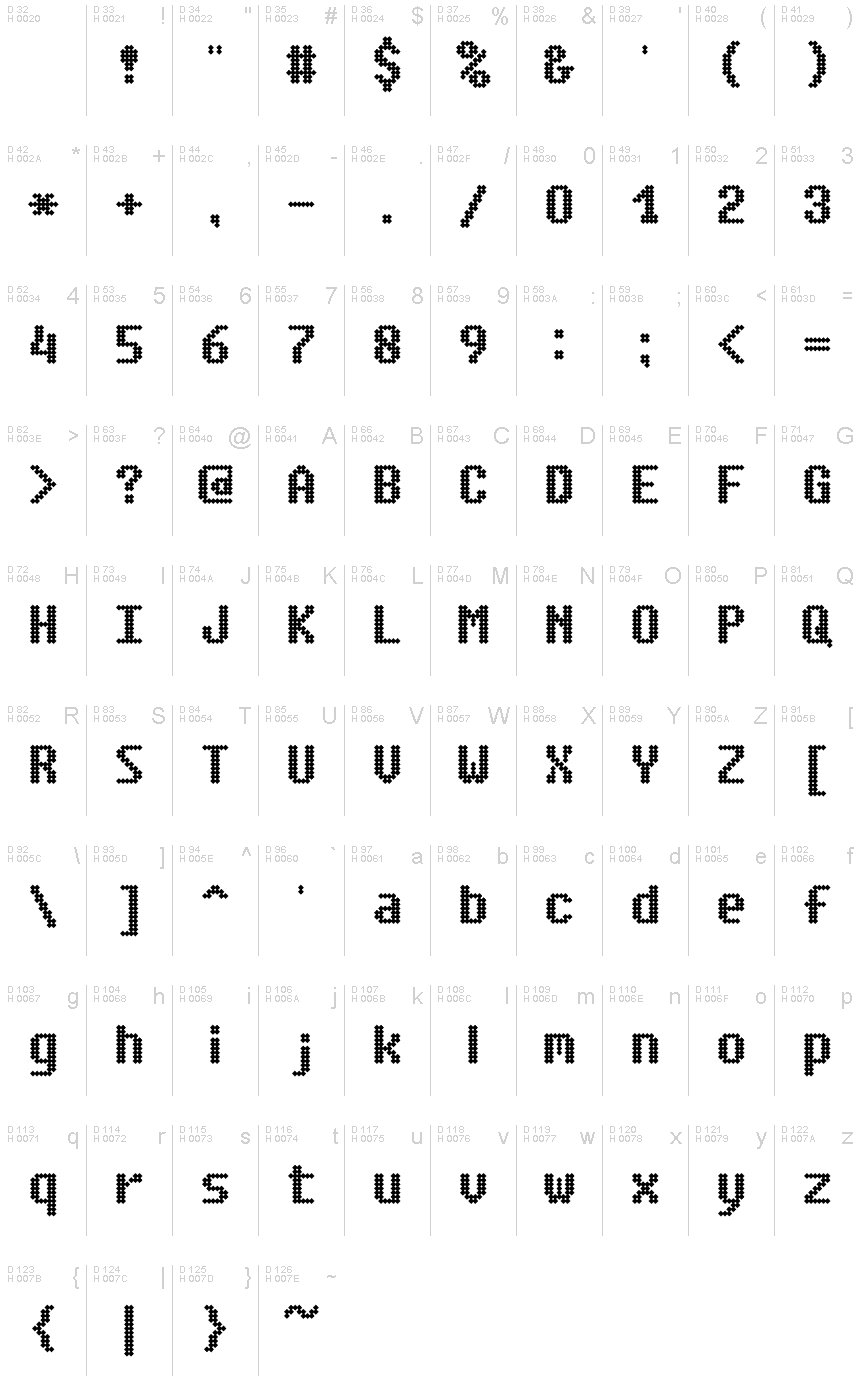
Simpleton BRK
Simpleton BRK, a creation of ÆNIGMA FONTS, stands out as a display font with a distinct techno style, perfect for modern design landscapes. Its semi-condensed width offers an appealing balance between space efficiency and legibility, making it an excellent choice for striking headlines and attention-grabbing signage.
The aesthetic of Simpleton BRK is defined by its clean lines and geometric forms which evoke a sense of futurism while remaining approachable. This font carries an intrinsic versatility that allows it to adapt to various creative projects ranging from tech startups' branding materials to event posters where a touch of sleek sophistication is desired.
With its contemporary vibe and stylish appearance, Simpleton BRK is poised to capture the eye of the audience in digital platforms or printed media, promising designers a font that not only communicates but also captivates.
The aesthetic of Simpleton BRK is defined by its clean lines and geometric forms which evoke a sense of futurism while remaining approachable. This font carries an intrinsic versatility that allows it to adapt to various creative projects ranging from tech startups' branding materials to event posters where a touch of sleek sophistication is desired.
With its contemporary vibe and stylish appearance, Simpleton BRK is poised to capture the eye of the audience in digital platforms or printed media, promising designers a font that not only communicates but also captivates.